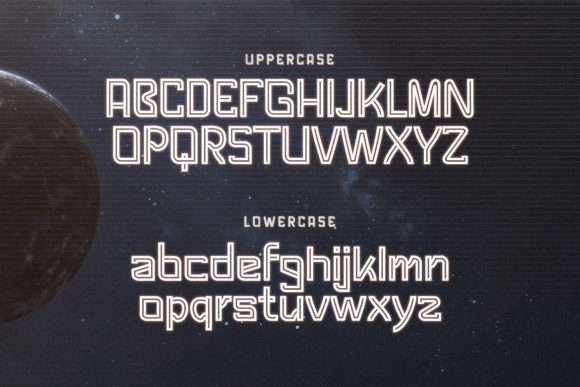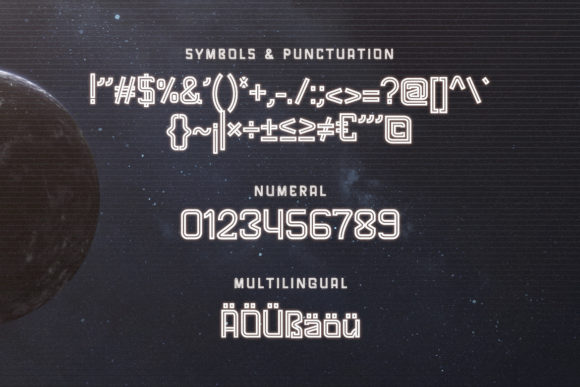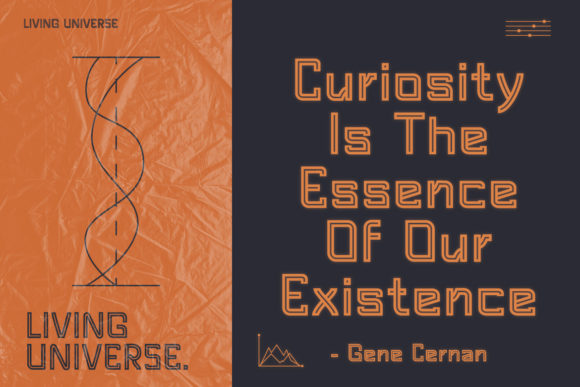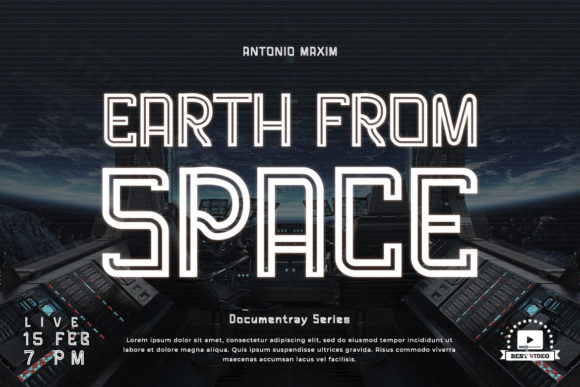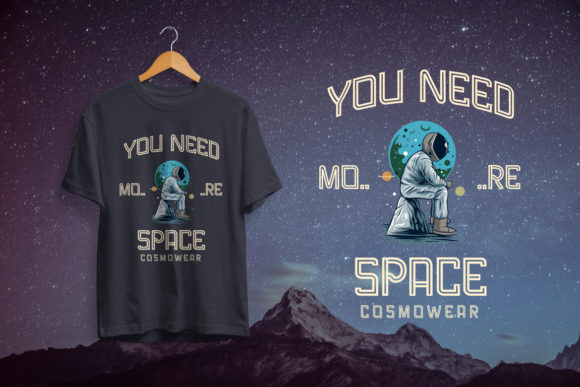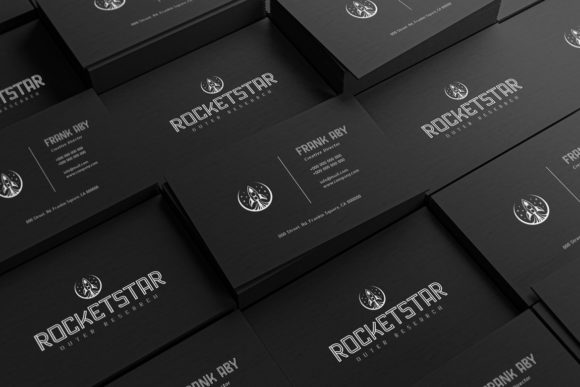
Cosmogen Font: Elevate Your Designs with a Modern, Stylish, and Futuristic Display Font
In the world of typography, fonts play a crucial role in conveying the tone and aesthetic of a design. For designers and crafters looking to add a touch of modernity and futurism to their creations, the Cosmogen Font is an excellent choice. This stunning display font is designed to make a statement, and its versatility makes it an asset to any font library.
What is Cosmogen Font?
Cosmogen is a modern, stylish, and futuristic display font that can elevate any design project. Its sleek lines, geometric shapes, and carefully crafted letterforms make it perfect for a wide range of applications, from branding and advertising to packaging and digital media. Whether you’re working on a logo, headline, or title, Cosmogen Font is sure to make a lasting impression.
Key Features of Cosmogen Font
- Modern and Futuristic Design: Cosmogen Font boasts a contemporary design that’s perfect for projects that require a cutting-edge look.
- Stylish and Elegant: The font’s sleek lines and geometric shapes give it a sophisticated and elegant feel that’s ideal for luxury brands and high-end designs.
- Versatile: Cosmogen Font can be used for a wide range of applications, from display text to titles and headings.
- Easy to Read: Despite its futuristic design, Cosmogen Font is easy to read, making it perfect for digital media and print applications.
Benefits of Using Cosmogen Font
So, why should you choose Cosmogen Font for your design projects? Here are just a few benefits:
- Enhance Your Brand’s Visual Identity: With Cosmogen Font, you can create a unique and memorable visual identity for your brand that sets you apart from the competition.
- Elevate Your Designs: This stunning display font can add a touch of sophistication and elegance to any design project, making it perfect for high-end brands and luxury products.
- Save Time and Effort: With Cosmogen Font, you can create professional-looking designs in no time, saving you time and effort in the design process.
Who Can Benefit from Cosmogen Font?
Cosmogen Font is perfect for a wide range of designers and crafters, including:
- Graphic Designers: Whether you’re working on a logo, brochure, or website, Cosmogen Font is a great addition to your font library.
- UI/UX Designers: This font is perfect for digital media, including mobile apps, websites, and video games.
- Crafters and Makers: If you’re creating handmade products, such as jewelry, crafts, or artwork, Cosmogen Font can add a touch of modernity and style to your designs.
How to Use Cosmogen Font
Using Cosmogen Font is easy! Here are a few tips to get you started:
- Experiment with Different Sizes: Cosmogen Font looks great in large sizes, but it can also be used for smaller text and titles.
- Play with Colors: This font looks great in bold, bright colors, but it can also be used with more muted tones and gradients.
- Combine with Other Fonts: Cosmogen Font pairs well with other modern and futuristic fonts, making it easy to create a unique and memorable visual identity.
In conclusion, Cosmogen Font is a modern, stylish, and futuristic display font that’s perfect for designers and crafters looking to elevate their designs. With its sleek lines, geometric shapes, and carefully crafted letterforms, this font is sure to make a lasting impression. Whether you’re working on a logo, headline, or title, Cosmogen Font is a great addition to your font library.